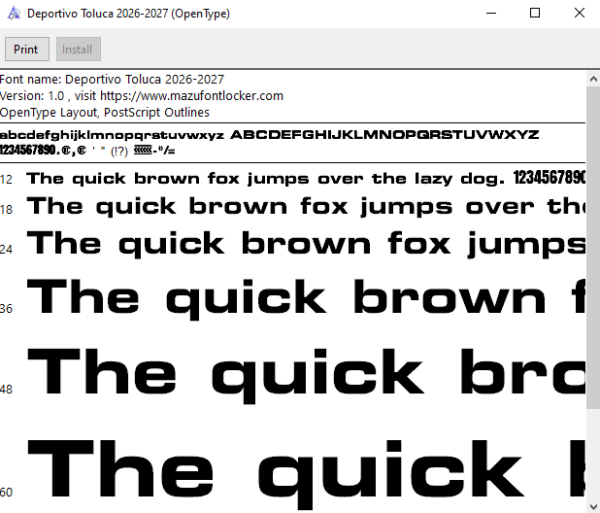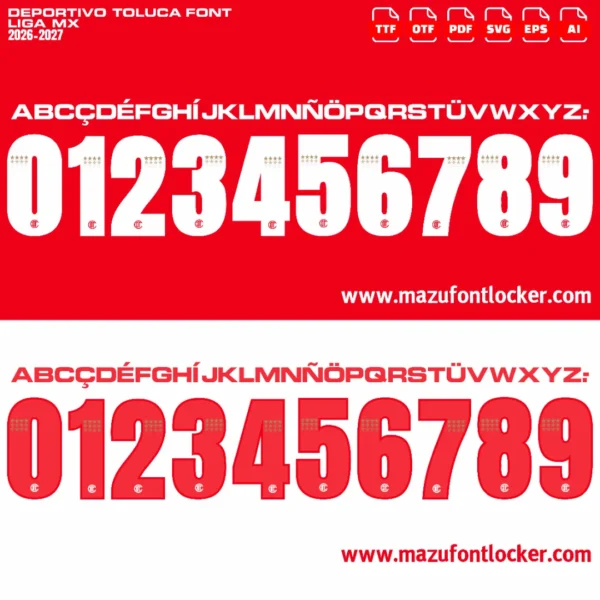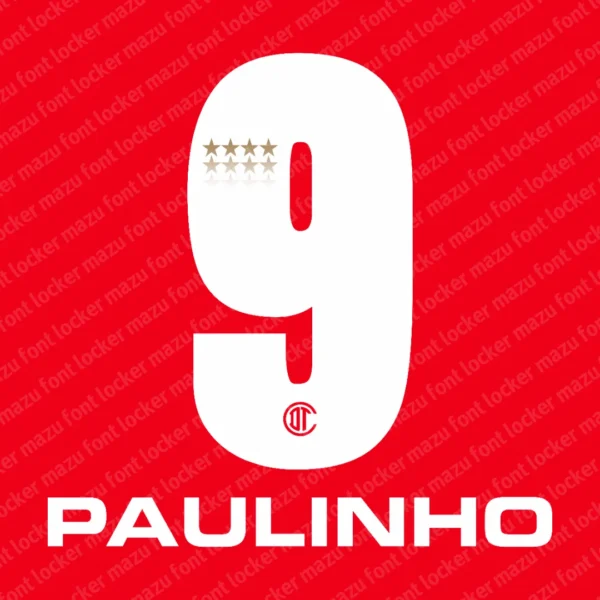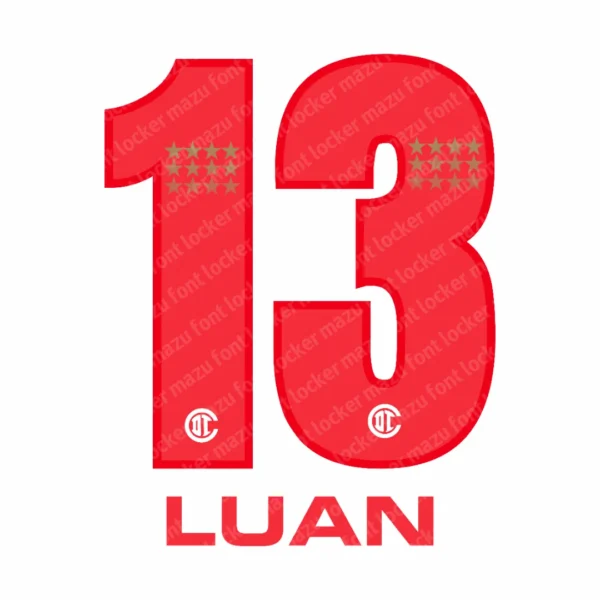
Deportivo Toluca 2026-2027 Font Vector – Epic Diablos Rojos Masterpiece
This font captures the commanding, razor-sharp, thunderous, and precision-engineered lettering that perfectly embodies Deportivo Toluca’s iconic club identity, proud Mexican heritage, never-say-die mentality, and raw football power — delivering unmatched authenticity, premium quality, explosive energy, and elite Liga MX & international dominance for professional jersey mockups, dynamic football graphics, premium sports branding, passionate fan creations, and high-end design projects.
Deportivo Toluca 2026-2027 Font Vector – Iconic Red & White Typeface
The Deportivo Toluca 2026-2027 Font Vector is a premium typeface that accurately recreates the official match lettering worn by Deportivo Toluca during the 2026-2027 season. This high-quality vector font kit captures the bold, clean, and instantly recognizable typography that perfectly complements the club’s iconic red and white identity.
Designed for professional designers, football enthusiasts, and passionate Deportivo Toluca supporters, the Deportivo Toluca 2026-2027 Font Vector delivers exceptional authenticity for creating realistic jersey mockups, football merchandise, social media graphics, match posters, and custom fan artwork. Every character has been carefully recreated to match the powerful and precise visual style of one of Mexico’s most successful football clubs.
This font stands out thanks to its precise vector construction and authentic club styling. Every letter and numeral has been meticulously recreated to match the official shirt lettering used throughout the 2026-2027 Liga MX and cup campaigns. Whether you’re producing professional kit templates or creating eye-catching football content, the Deportivo Toluca 2026-2027 Font Vector delivers a genuine match-ready appearance.
The lettering featured in the Deportivo Toluca 2026-2027 Font Vector combines clean geometric lines with powerful modern proportions. The result is a premium and highly readable typeface that reflects Deportivo Toluca’s fighting spirit, precision, and legendary status in Mexican football.
• Complete uppercase A–Z alphabet and numbers 0–9 in authentic Deportivo Toluca 2026-2027 style
• Includes authentic Liga MX badge glyph placement beneath player numbers